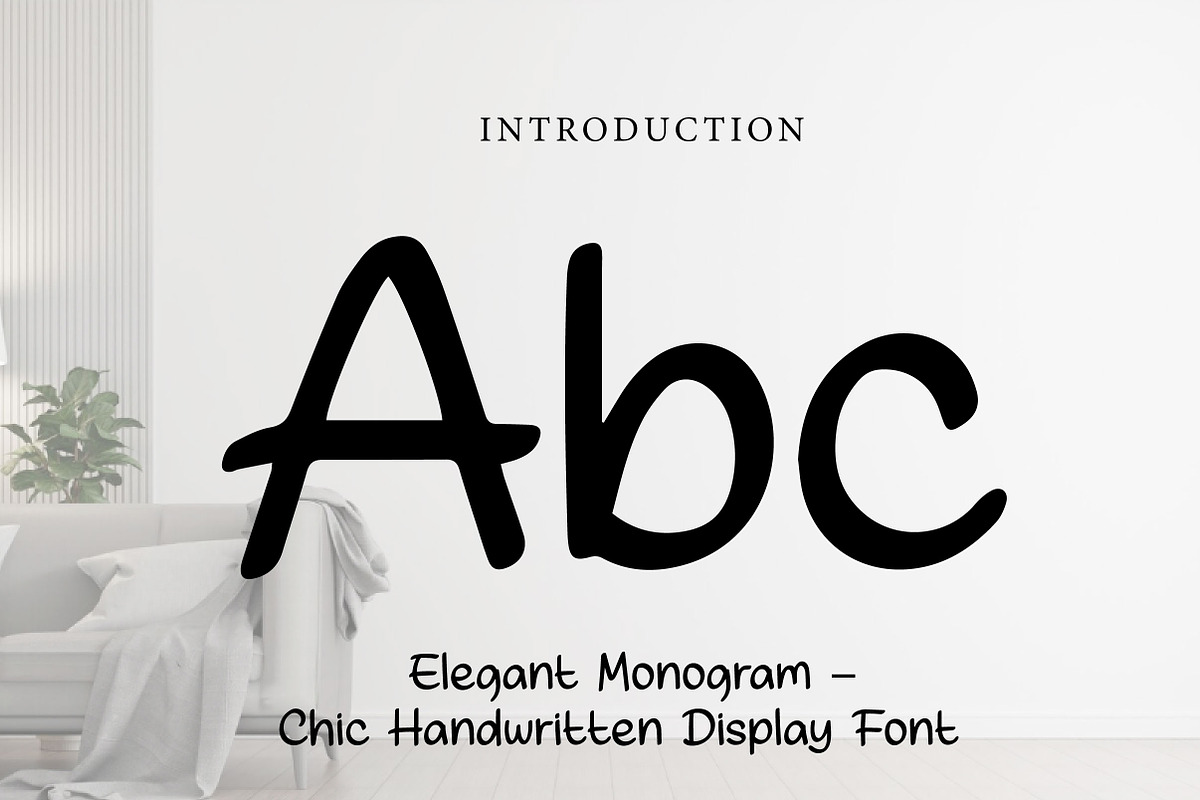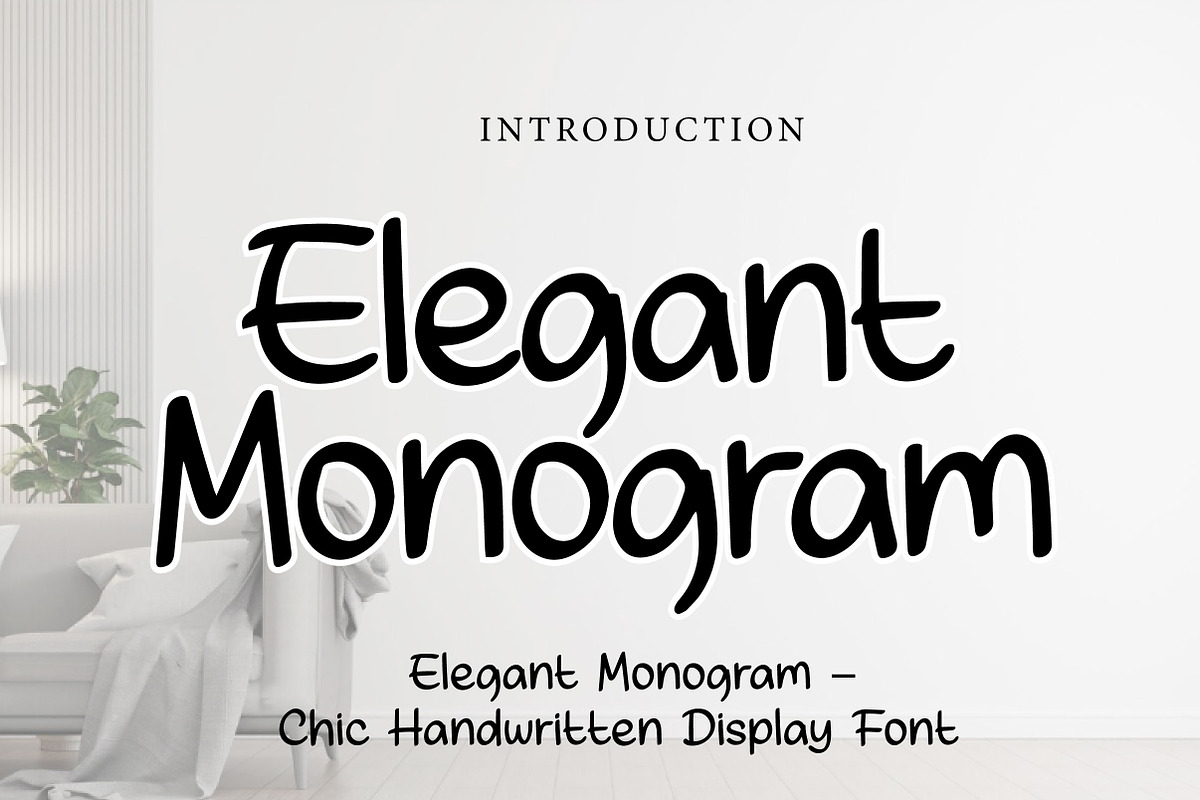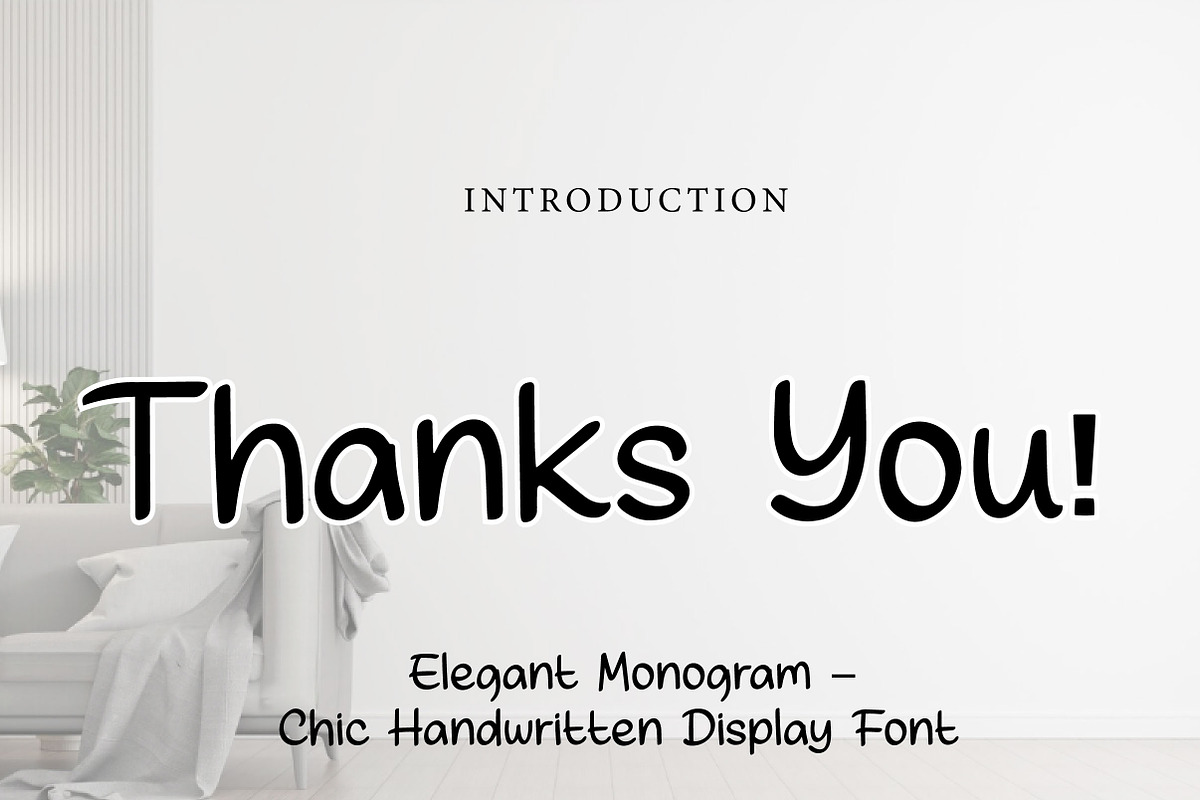
Elegant Monogram
Elegant Monogram – Chic Handwritten Display Font
Elegant Monogram is a chic, clean, and playful handwritten display font, perfect for monograms, branding, invitations, logos, packaging, and stylish creative projects.
Elegant Monogram is a charming handwritten display font designed to bring simplicity, elegance, and personality into your designs. With its smooth strokes, rounded letterforms, and natural handwritten style, this font creates a clean and stylish look that feels both modern and approachable.
Its balanced and versatile character makes Elegant Monogram perfect for projects that need a soft yet refined touch. Whether you are designing monograms, wedding invitations, branding materials, product packaging, social media graphics, greeting cards, or personalized logo concepts, this font helps your typography feel graceful, friendly, and memorable.
The smooth handwritten flow adds a personal and creative feel while keeping the text highly readable. Suitable for both print and digital use, Elegant Monogram is a great choice for designers who want a font that feels elegant, cute, and easy to use across many design styles.
Perfect For Monogram designs Branding and logos Wedding invitations Greeting cards Product packaging Social media graphics Personalized gifts Website headers Stickers and labels Stylish typography projects Font Features Uppercase letters Lowercase letters Numbers & punctuation Clean handwritten style Smooth and rounded shapes Chic and friendly appearance Perfect for display use